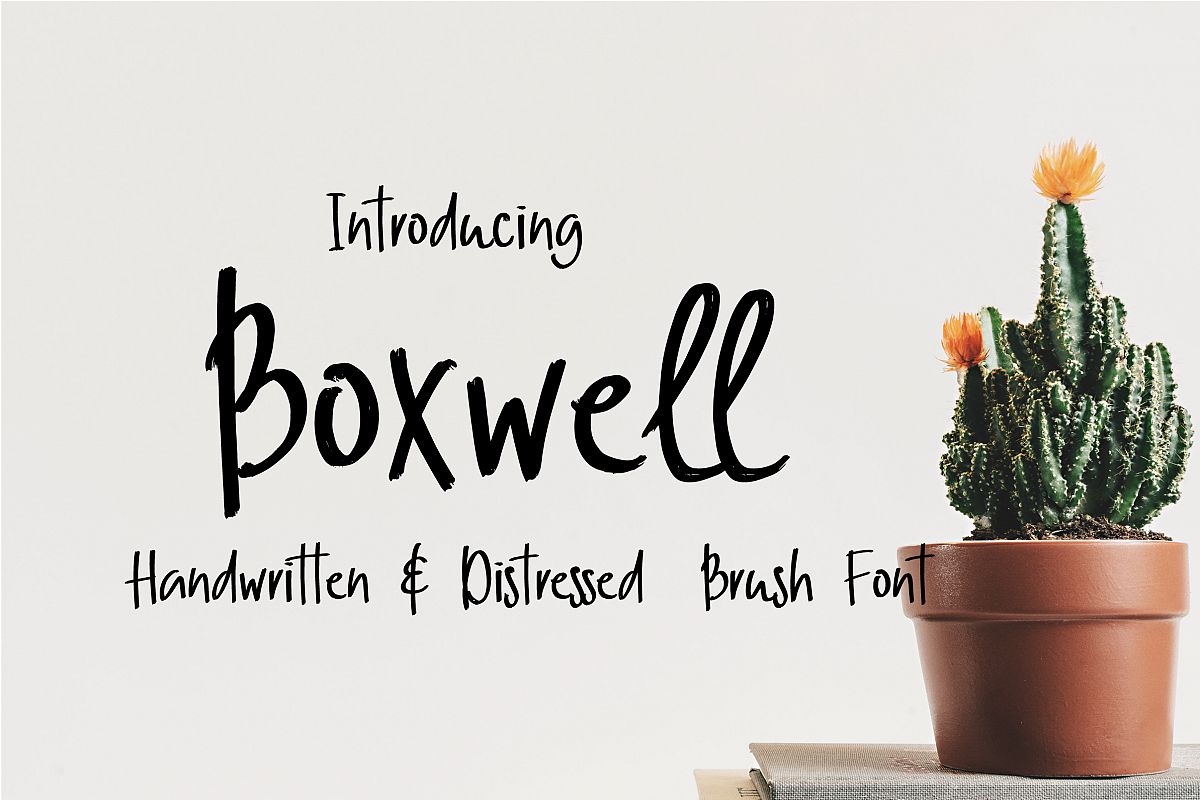
Boxwell
Meet Boxwell, brand new gently distressed handwritten brush font.
The font includes complete character set, inclusive of characters for European languages.
Boxwell is a multipurpose font that can be used in branding,
advertising, packaging for headlines or for layouts that require
handwriting.